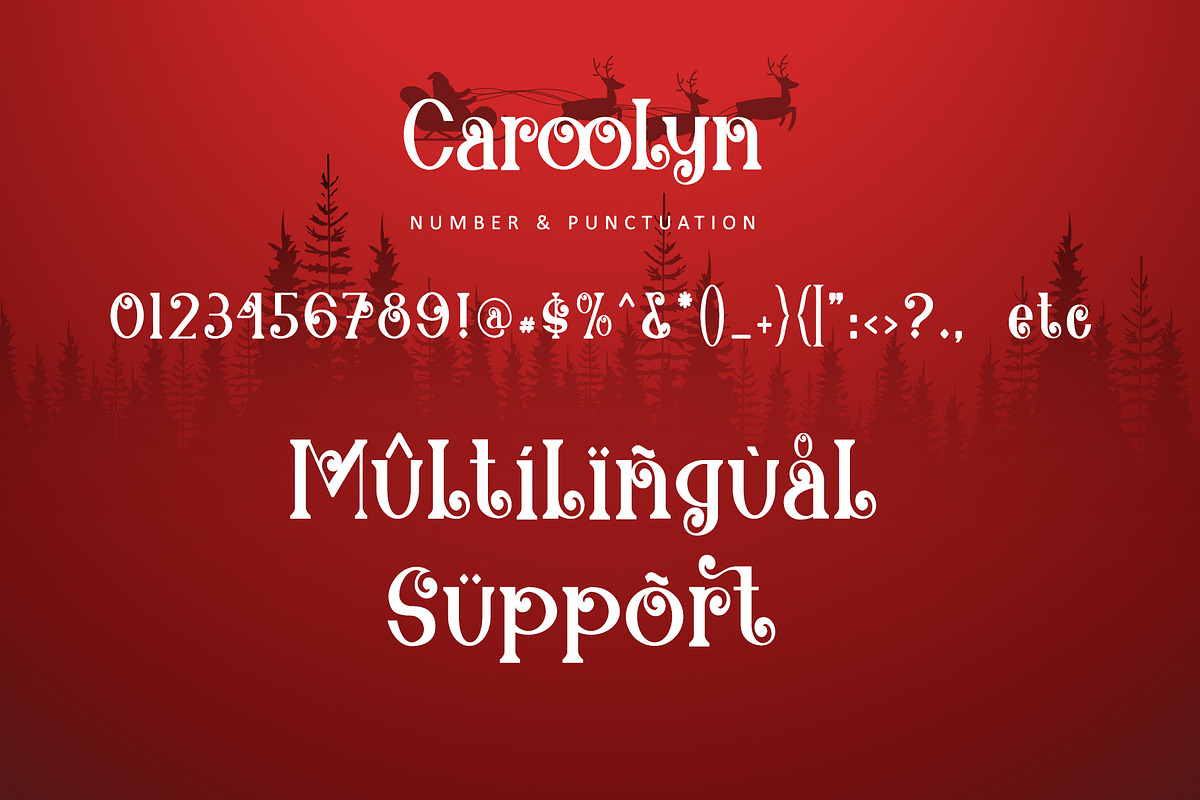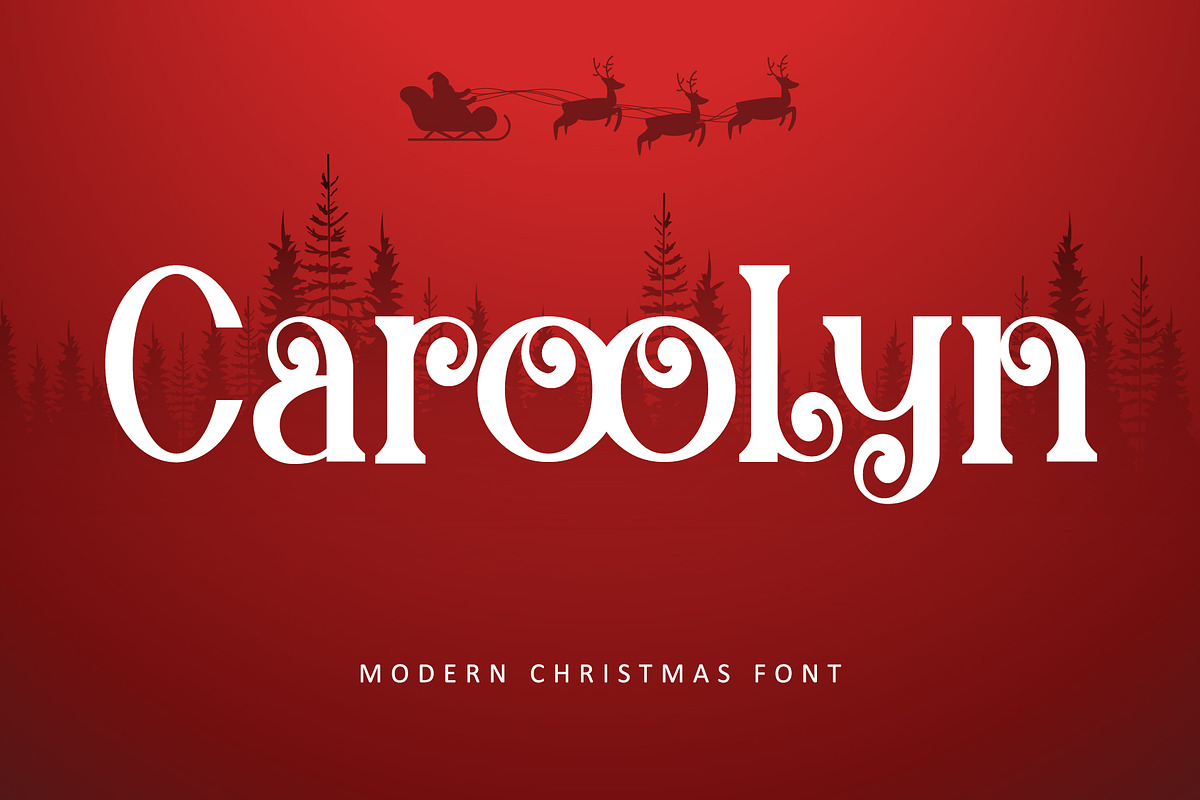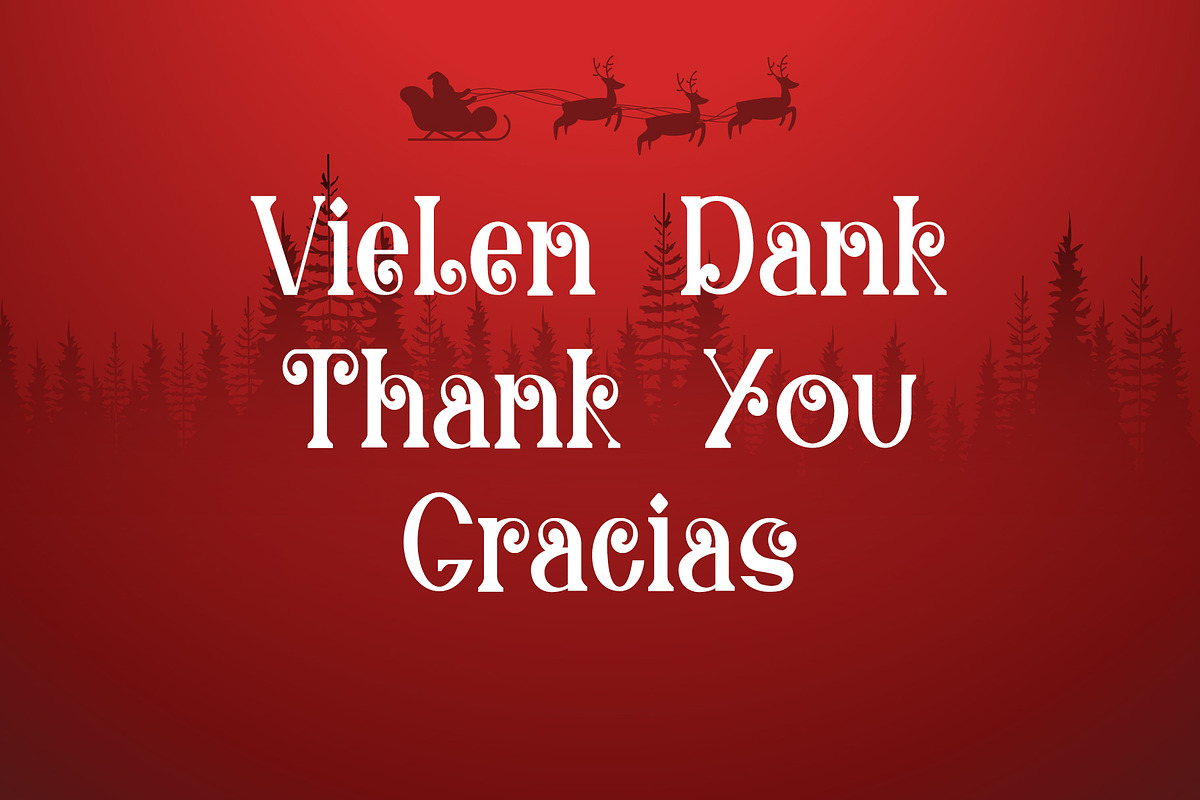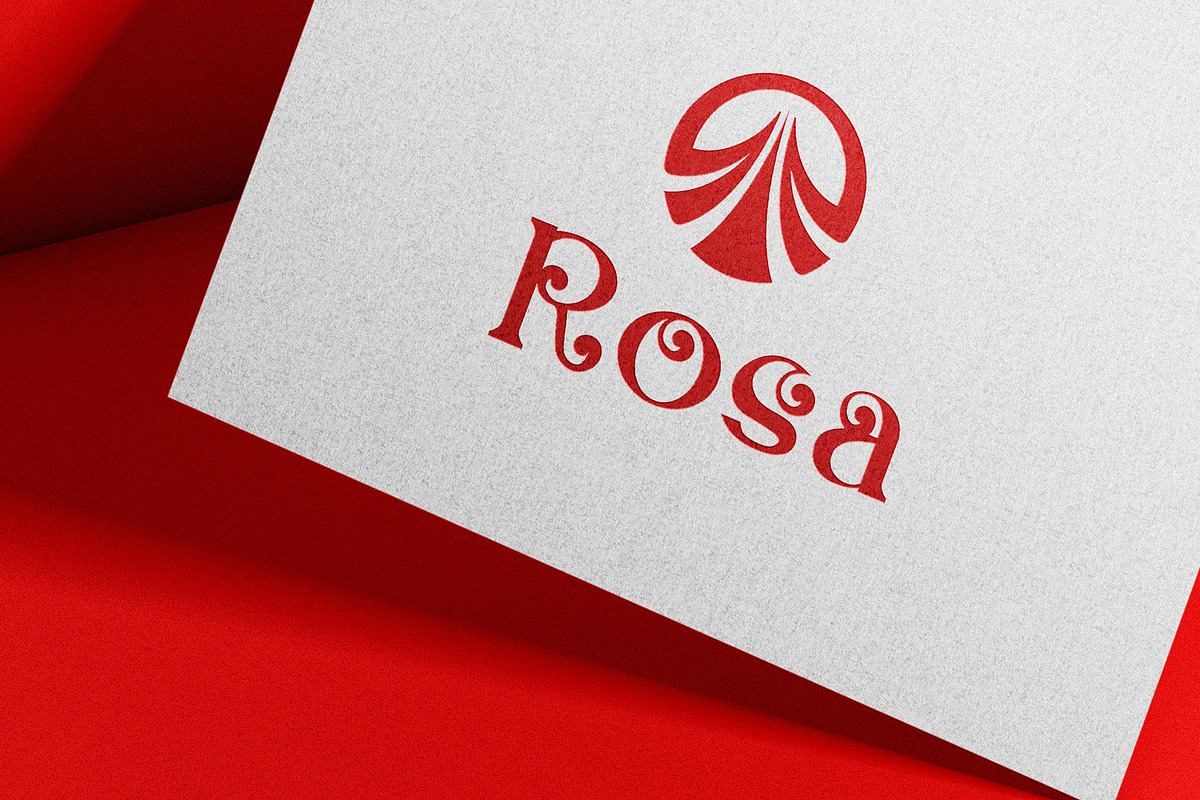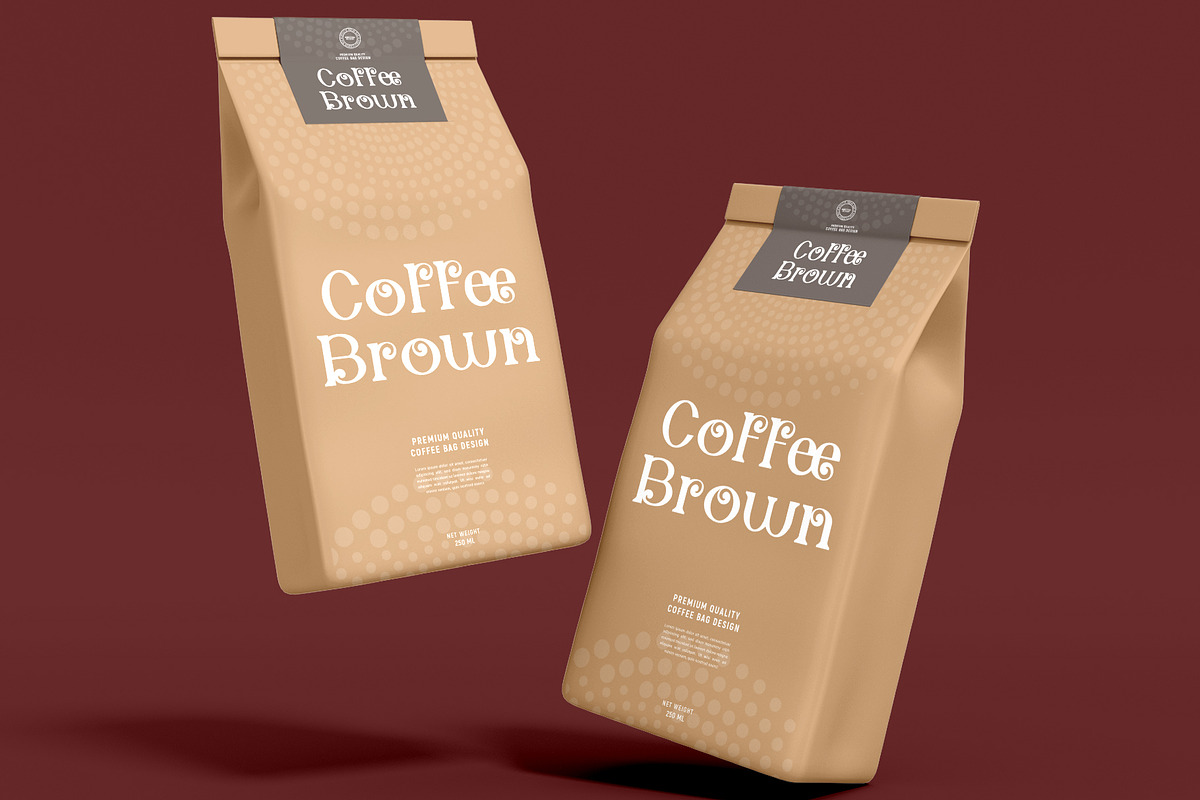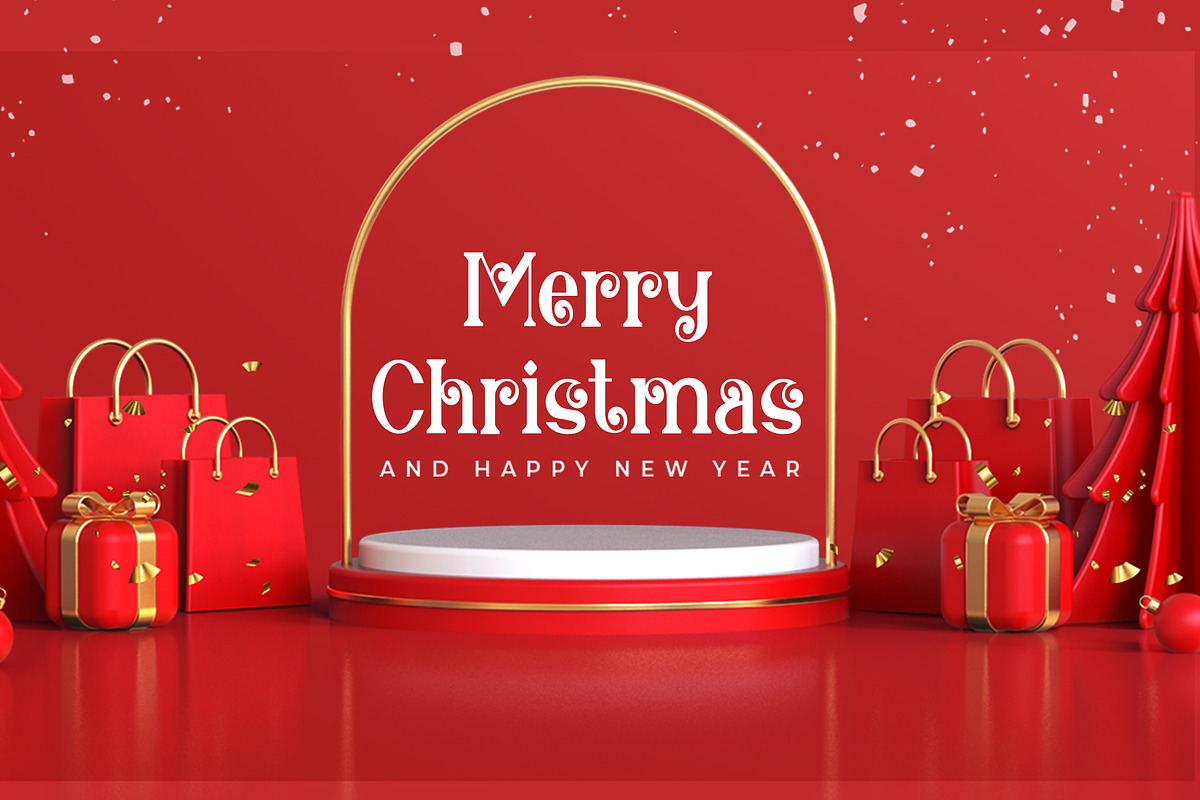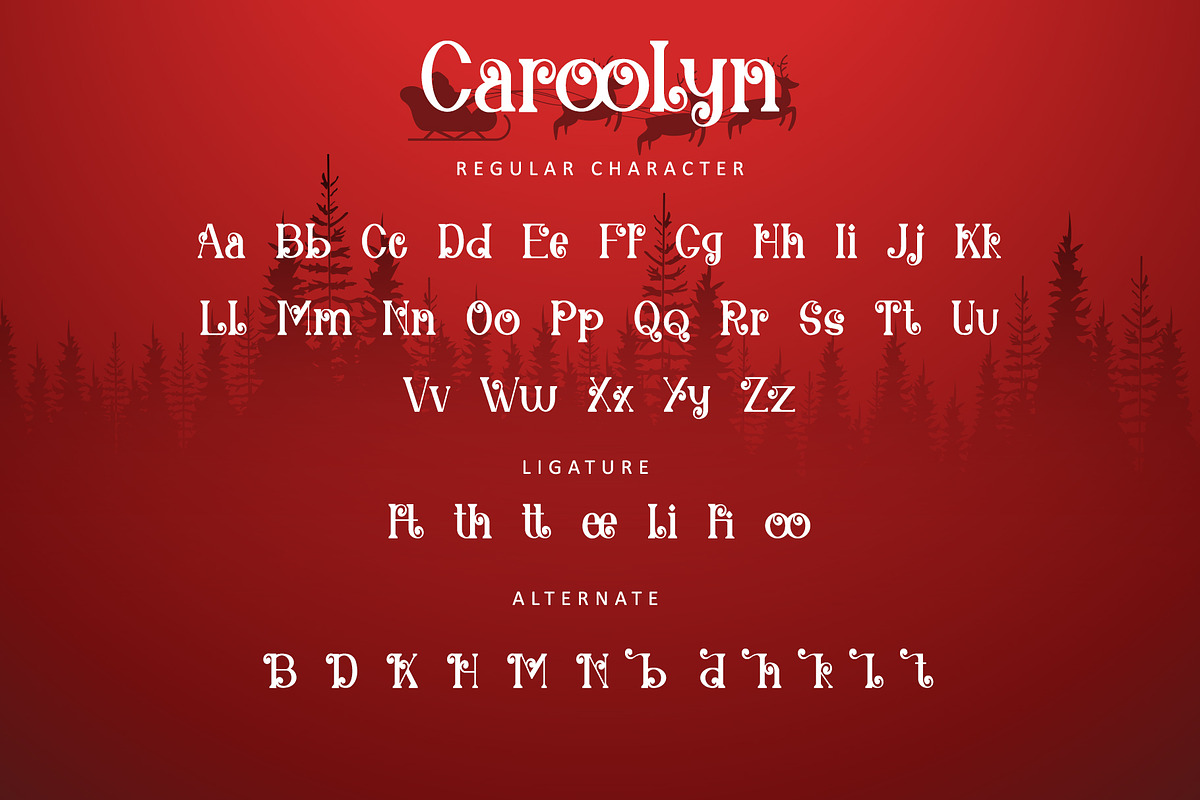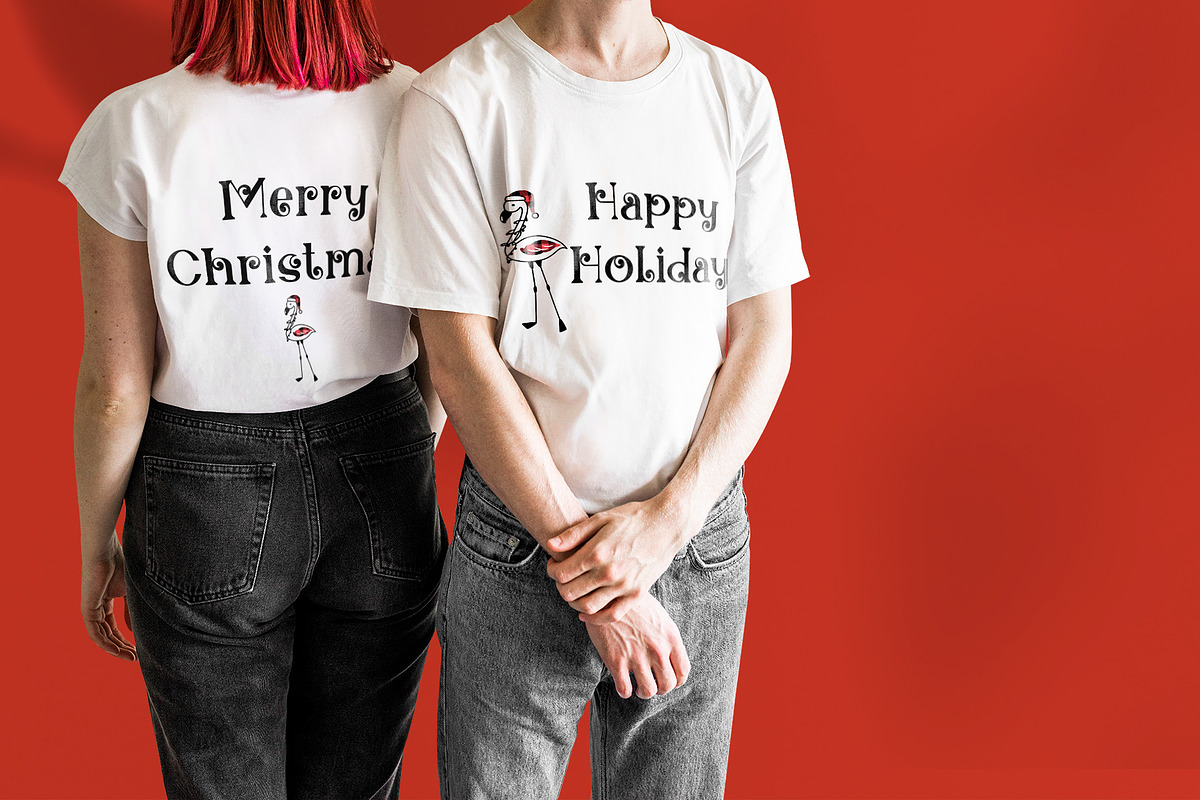
Caroolyn
Caroolyn is a modern and luxury serif font. This font is not only designed for Christmas needs, so you can easily customize it to your needs. You can use it to make headlines, logos, covers, posters, and other upcoming projects. This font is PUA encoded which means you can access all of the glyphs and swashes with ease!
- Support multilingual; ä ö ü Ä Ö Ü ß ¿ ¡
- lowercase and uppercase letters